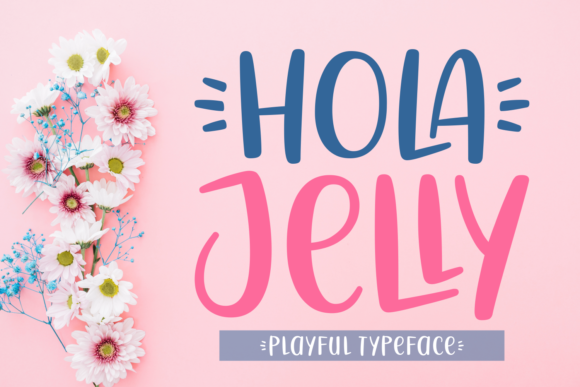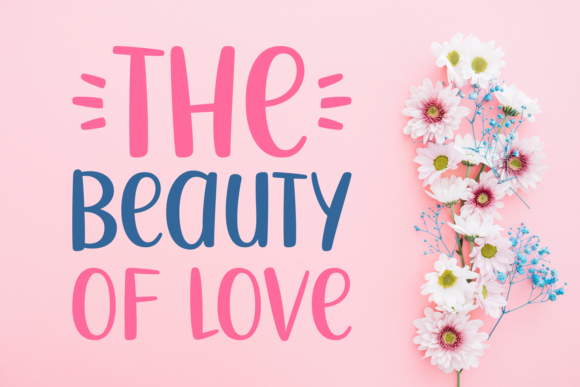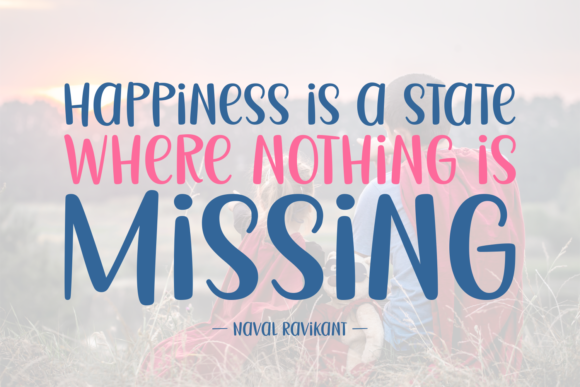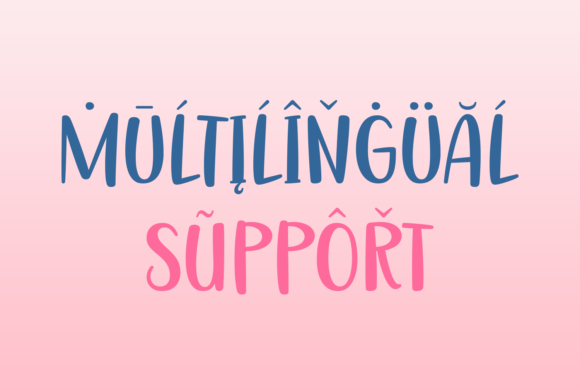
Spreading Joy, One Letter at a Time
Have you ever been brainstorming ideas for a children’s book or a school project, and suddenly, a burst of creativity strikes? The words flow, the characters come alive, and the story unfolds before your eyes. It’s moments like these that make being a designer truly magical.
When it comes to bringing your ideas to life, the right font can make all the difference. Enter Hola Jelly Font, a delightful display font that embodies the spirit of playfulness and authenticity. Perfect for any children’s activity or school project, Hola Jelly Font is a valuable asset for designers looking to add a touch of whimsy to their creations.
With Hola Jelly Font, you can infuse your designs with a sense of joy and wonder, making it a must-have for anyone looking to create engaging and memorable content for kids. Whether you’re a seasoned pro or just starting out, this font is sure to become a trusted companion in your creative journey.
Hola Jelly Font Key Features
- Unique Characteristics: Hola Jelly Font features a unique, hand-drawn style with a mix of playful and elegant elements, making it perfect for creative and artistic designs.
Hola Jelly Font Review
As a designer, I’ve had the chance to work with many fonts, but the Hola Jelly Font has left me with mixed feelings.
- The font’s playful and whimsical nature makes it perfect for creative projects like children’s books, party invitations, or social media graphics.
- The font’s bold and vibrant colors add a fun and energetic vibe, making it ideal for branding and marketing materials.
- The font’s OpenType features allow for some really cool and creative typography effects.
- The font may not be suitable for formal or professional projects, as its playful nature may come across as unprofessional.
- The font’s bold lines and bright colors may be overwhelming if used in large quantities.
- The font may not be fully optimized for smaller font sizes, which can affect readability.
Overall, I think the Hola Jelly Font is a fun and creative font that can add a lot of personality to a project. However, it’s essential to use it wisely and consider the project’s tone and audience. With some careful planning, this font can be a great addition to any design.
The Hola Jelly Font is perfect for creating playful and whimsical designs. Here are some common use cases:
- Birthday invitations and party decorations
- Children’s book illustrations and typography
- Food and drink branding and packaging
- Social media graphics and advertisements
Remember to experiment with different font sizes, colors, and styles to get the most out of the Hola Jelly Font.
Alternatives to Hola Jelly Font